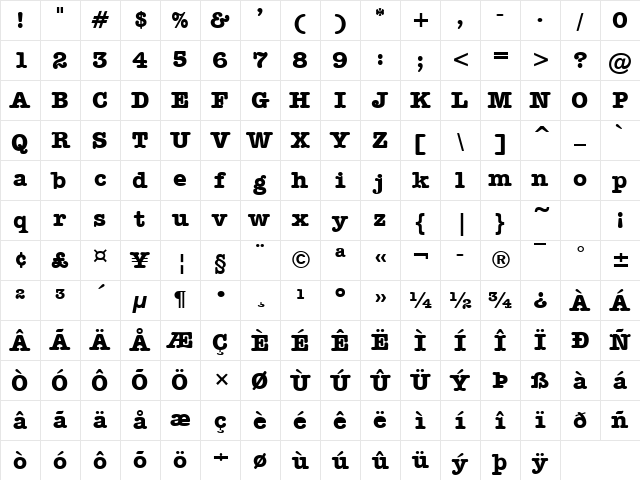
Complete Dateline Bold glyph index. Displaying only characters natively supported by Dateline Bold font.
Dateline is a composed and adaptable typeface that performs quietly and consistently across a wide range of design contexts. Its bold stroke weight gives it real presence on the page.